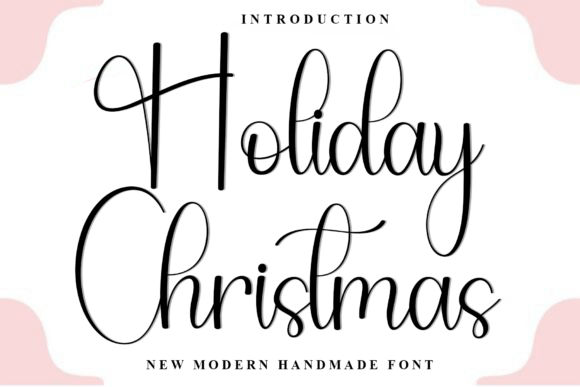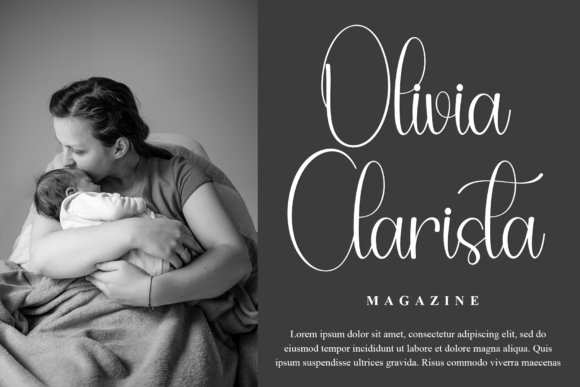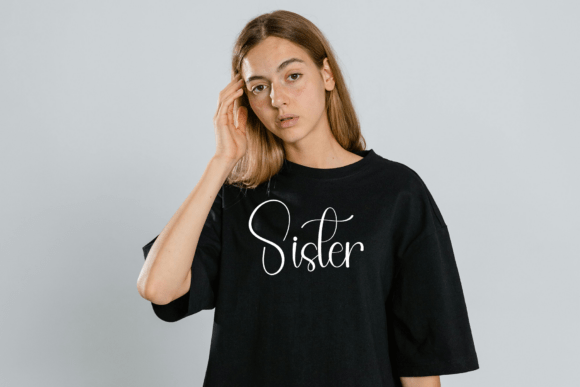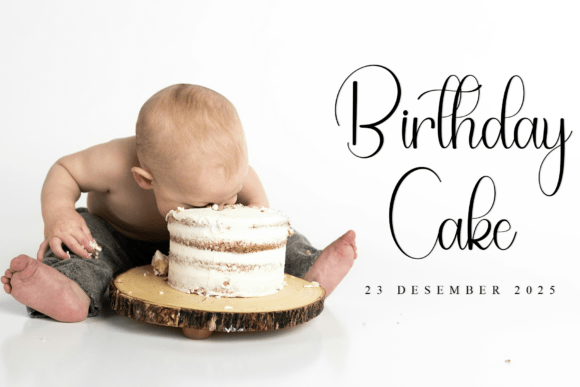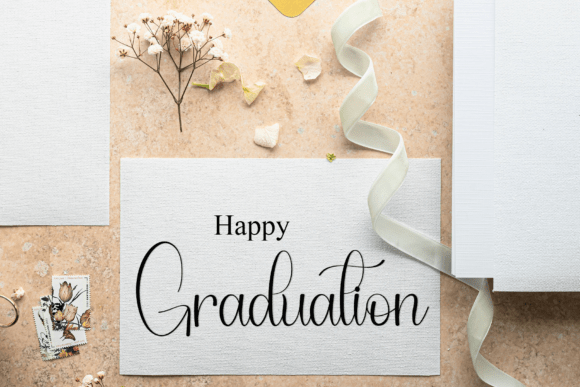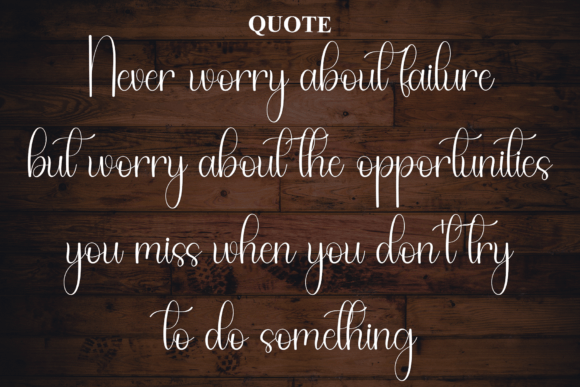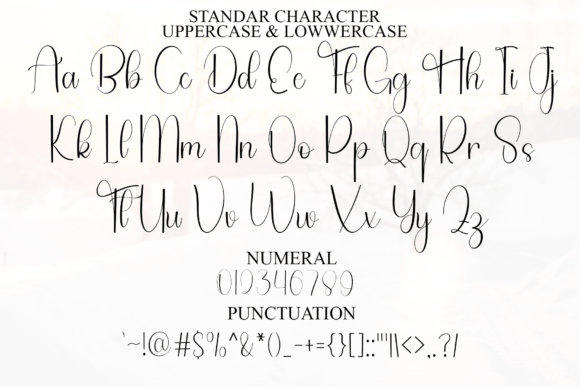
Deck the Halls with Holiday Cheer: Introducing the Holiday Christmas Font
As you sit down to plan this year’s holiday cards, social media posts, and party invitations, the pressure to create something truly special can be overwhelming. But what if you had the perfect tool to add a dash of festive fun to your designs? Enter the Holiday Christmas Font, a delightful and playful typeface that’s sure to spread holiday cheer.
This charming font is designed to evoke the warmth and friendliness of the season, with its round, playful strokes and hand-drawn aesthetic. Whether you’re a seasoned designer or a DIY enthusiast, the Holiday Christmas Font is a valuable addition to your creative toolkit. With its standard PUA Encoded glyphs, you can easily use it in a variety of applications, from Adobe Photoshop to Canva.
Holiday Christmas Font Key Features
- Unique Characteristics: Holiday Christmas Font features a festive and playful design, with intricate details and ornaments that evoke a sense of holiday cheer.
Designer Review: Holiday Christmas Font
Overall, I think the Holiday Christmas Font is a fun and festive addition to any project. Here are some of the things that work well: ✨
- Unique and playful characters: The font has a charming, handwritten feel that’s perfect for Christmas-themed projects.
- Good for headings and titles: The font is bold and eye-catching, making it great for headings and titles.
- Fun and creative possibilities: The font’s playful nature makes it a great choice for creative projects like greeting cards, invitations, and social media graphics.
- Limited legibility: The font’s unique characters can make it difficult to read at smaller sizes or in body text.
- Not suitable for formal projects: The font’s playful nature may not be suitable for formal or professional projects.
Overall, I think the Holiday Christmas Font is a great choice for projects that need a fun and festive touch. Just be sure to use it wisely and consider the limitations.
The Holiday Christmas Font is perfect for:
- Christmas cards and invitations.
- Holiday-themed social media posts and graphics.
- Seasonal advertising and marketing materials.